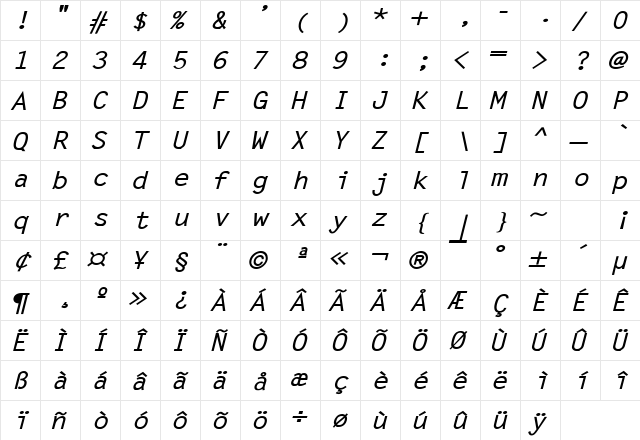
Lechter Wide Bold Italic Font Preview
Design Context for Lechter Wide Typeface
Lechter Wide takes a measured approach to typography — its balanced proportions and neutral character make it a reliable workhorse for both digital and print work. The slanted form adds forward momentum and visual energy. The heavy weight commands attention and anchors typographic hierarchies.
Pro Tip: Try Lechter Wide for annotation and caption copy alongside an upright companion — the contrast in angle creates a dynamic but ordered typographic system.